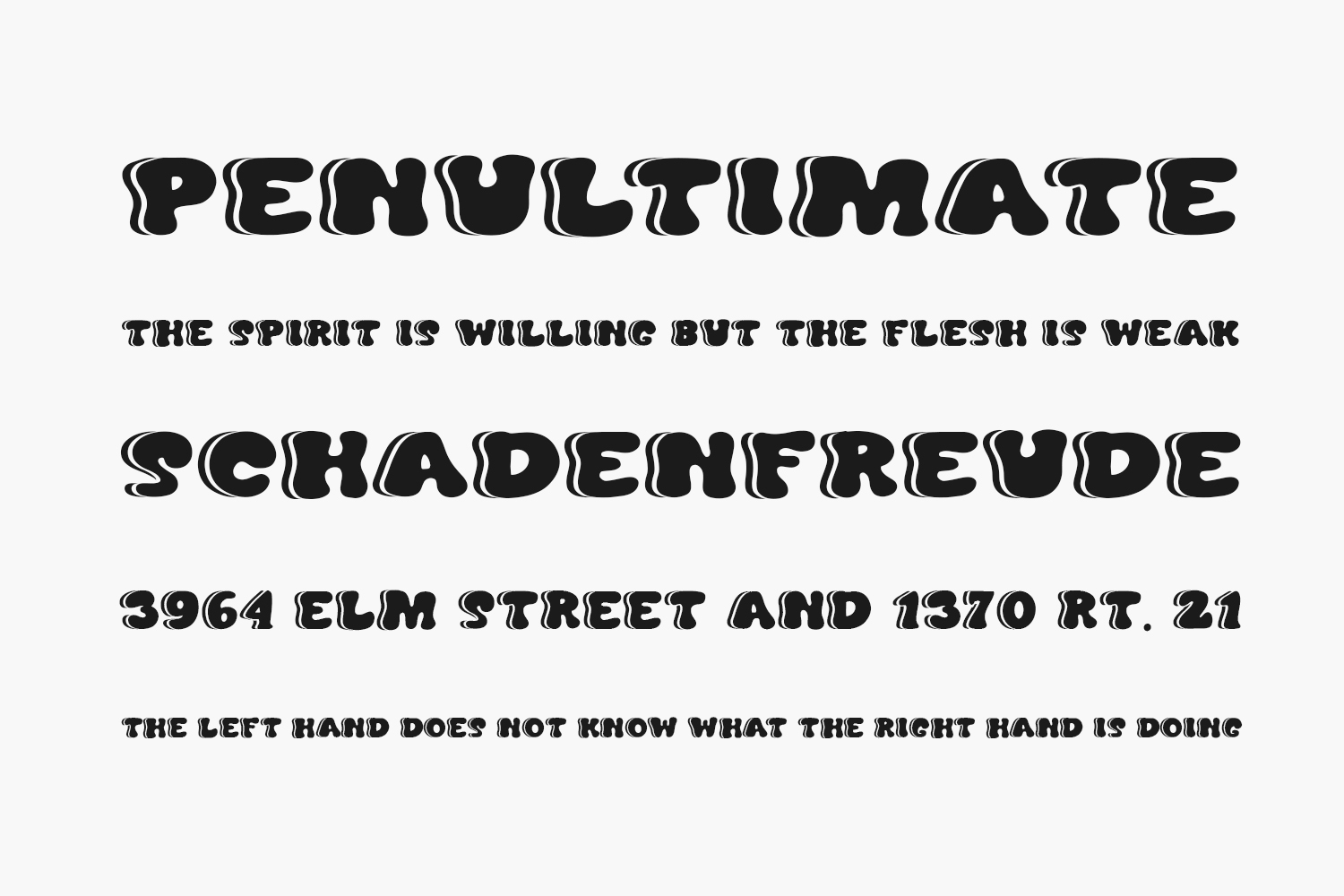
Meet Mecha Baby Free Font, an adorable display font that radiates playfulness and authenticity. Ideal for children’s activities or school projects, this cute and chunky lettered font can breathe life into your designs. Incorporate Mecha Baby into your creative endeavors and witness the delightful transformation it brings to your projects. Download the font for free if you need it for personal use or purchase the full version for commercial use.
Designed by Beautypes